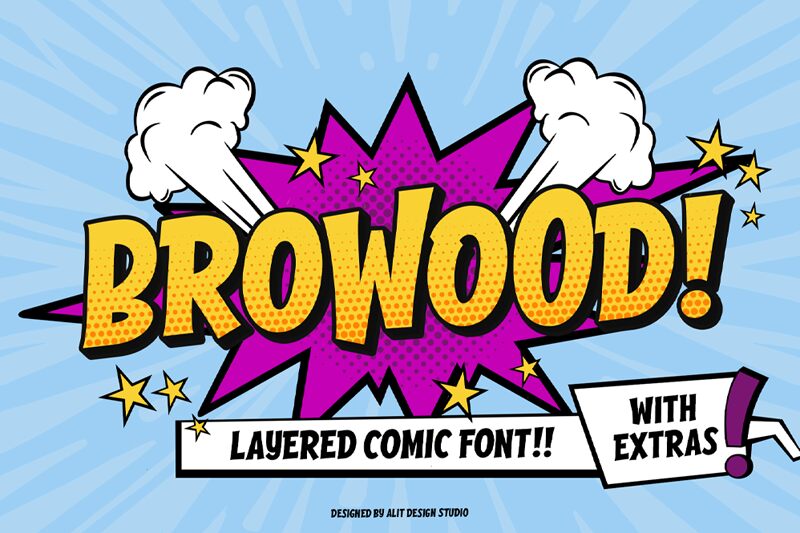
Browood Regular
Browood, a creation of Alit Design, delivers an engaging blend of personality and readability that is immediately apparent in its semi-bold, comic style. This display font showcases a playful yet confident character with its semi-condensed letterforms, making it an excellent choice for designers looking to add a touch of whimsy without sacrificing impact.
The aesthetic appeal of Browood lies in its balanced irregularities which evoke the charm of hand-drawn artwork while maintaining the clarity needed for diverse applications. Its buoyant curves and clean lines ensure that it stands out whether used in headlines, logos, or any creative endeavor seeking a mix of fun and professionalism.
Given its versatile nature and distinctive style, Browood is ideally suited for projects ranging from children's books to branding campaigns where an approachable yet assertive tone is desired. The unique characteristics of this font make it not just a typographic choice but an artistic statement that can elevate your project's visual narrative.